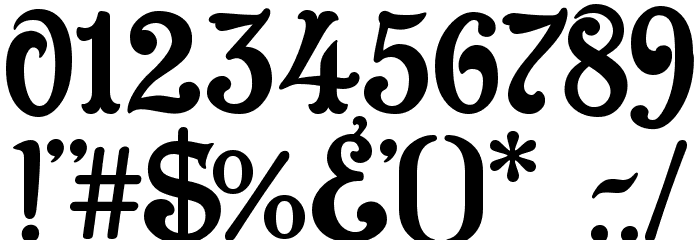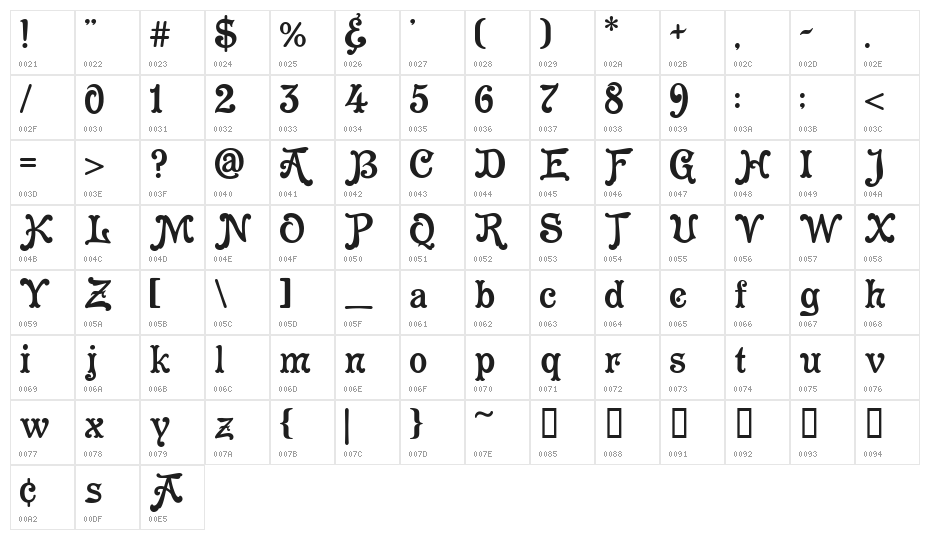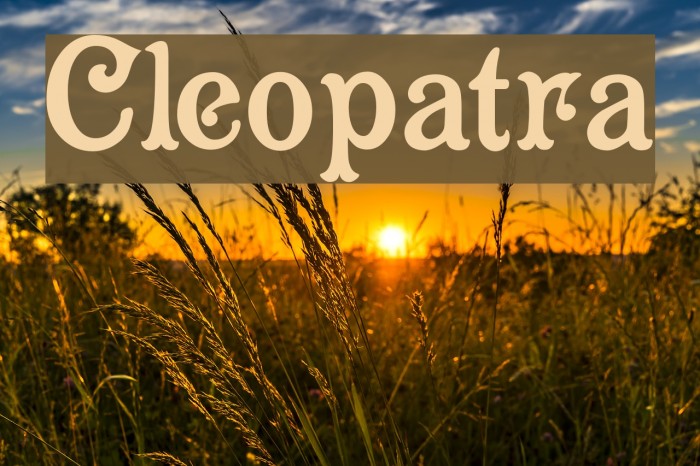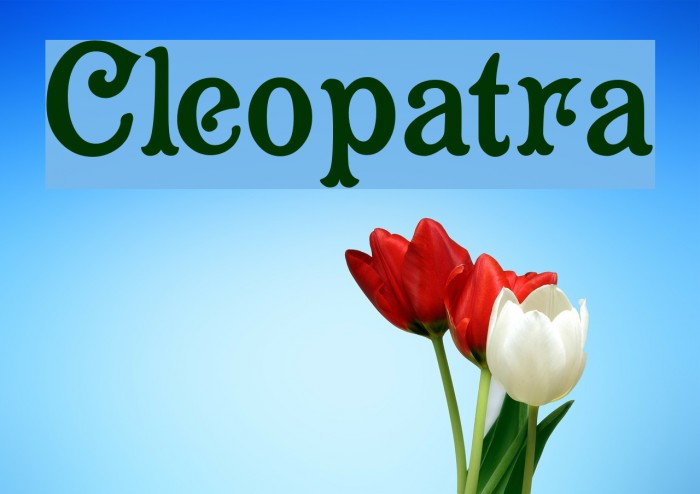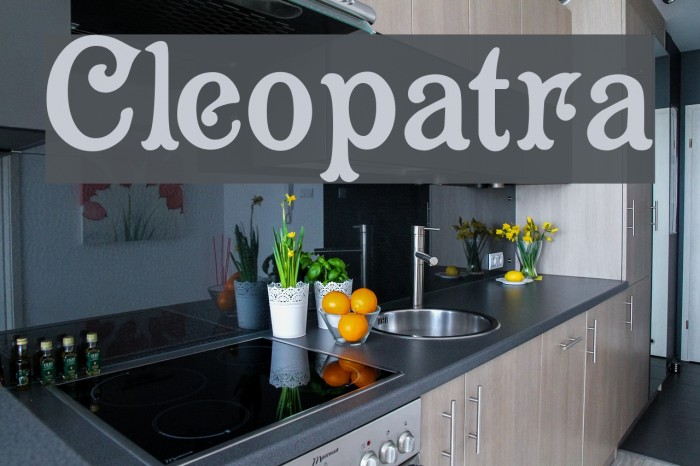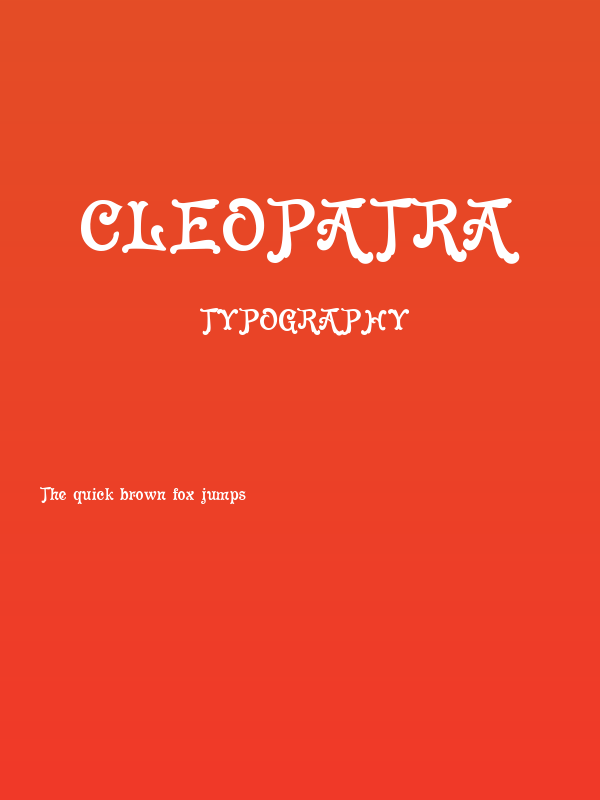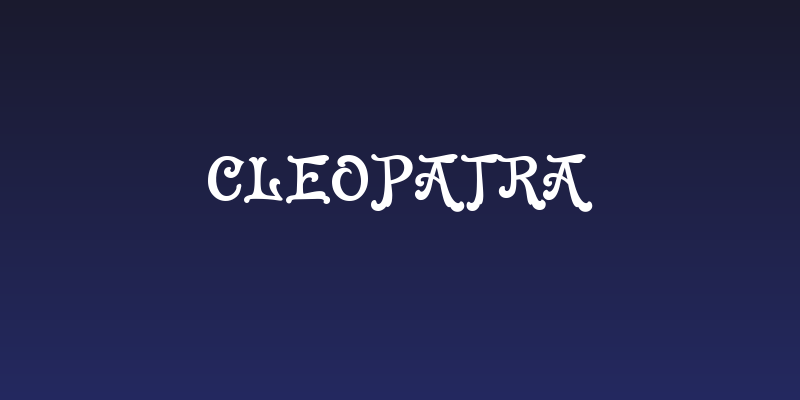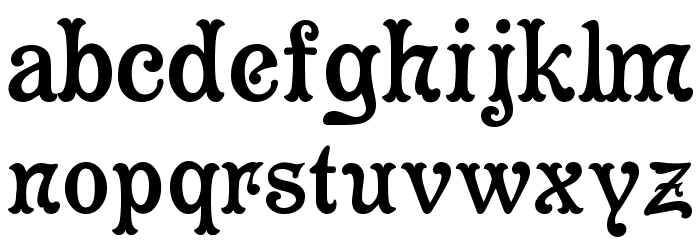
Cleopatra Font
Cleopatra Description
This font features a playful and decorative style with a whimsical flair. The characters are bold and have a unique, hand-drawn appearance, characterized by exaggerated curves and flourishes. The uppercase letters have a distinct presence with their ornate detailing, while the lowercase letters maintain a consistent style that complements the uppercase. The numbers are equally stylized, adding to the font's overall charm. Special characters are creatively designed, fitting seamlessly with the rest of the character set. This font's artistic nature makes it stand out, perfect for projects that require a touch of creativity and uniqueness.